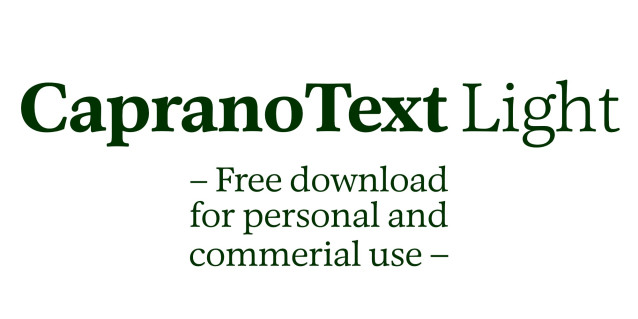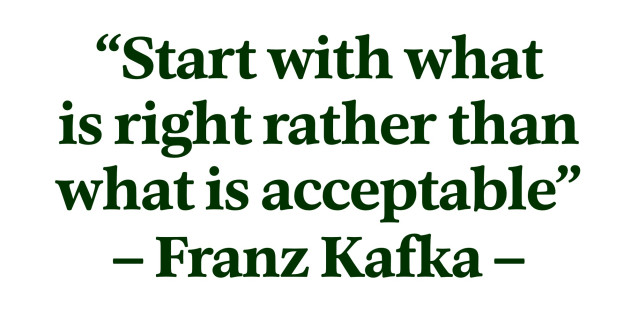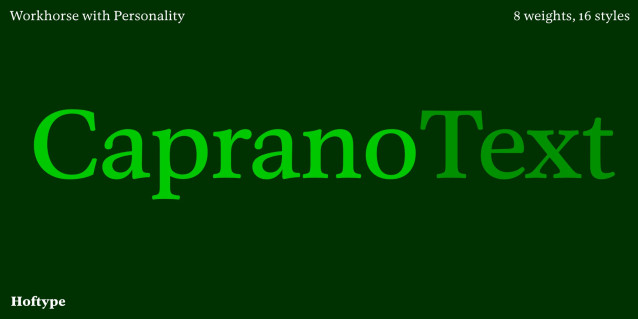
Caprano Text Font Family
Caprano Text Font Family is the more “down-to-earth” version of Caprano. It features stronger hairlines, stronger serifs, and slightly wider proportions. Its greater x-height ensures an open text image that is easy to read, even in very small text applications. The robust stroke weights enable expressive headlines and also makes it a strong workhorse. CapranoText is recommended as a contemporary alternative to established fonts such as Plantin, Times New Roman, and Garamond.